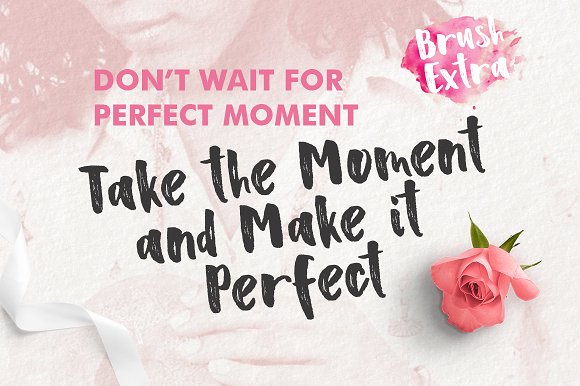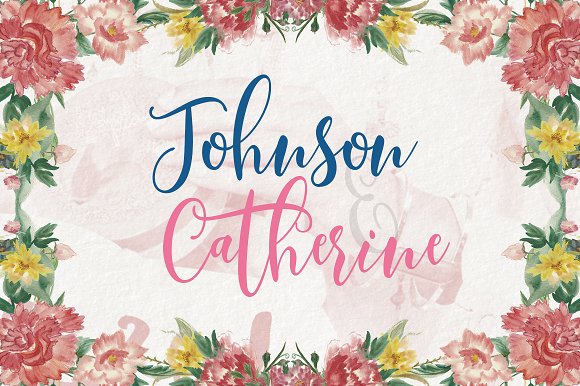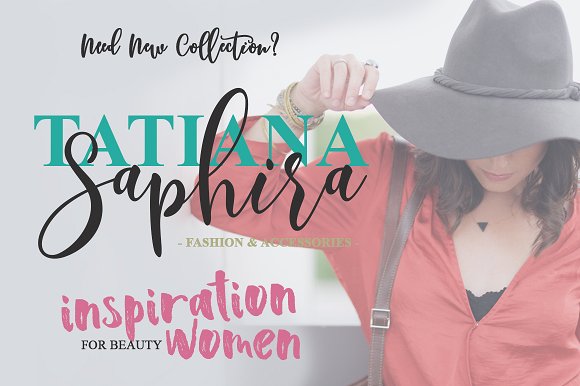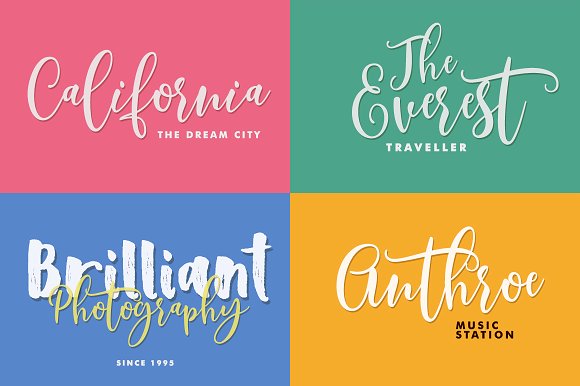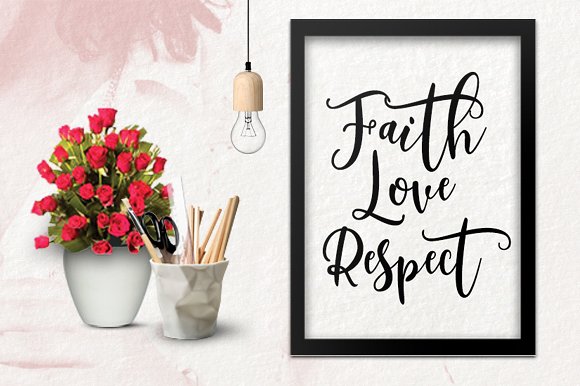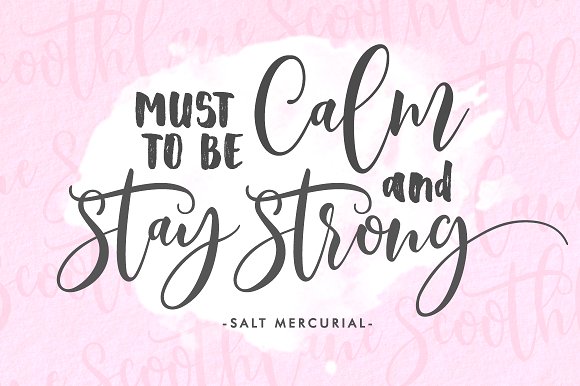
HomePersonal Use FreeScoothlane Personal Use Free Scoothlane FacebookTwitterPinterestWhatsApp 1 of 8 About Scoothlane Font Scoothlane is a smooth handwritten font with soft letters and packed with swashes. DOWNLOAD NOW People also explored Dastie Font Cutebray Font Agatha Font Chocolate Font Calsatia Font Delphia Font Cholete Jetto Font Purple Queen Font Withdrew Font 198 0 TagsScoothlane Font Previous articleBoskNext articleSquealer LEAVE A REPLY Cancel reply Comment: Please enter your comment! Name:* Please enter your name here Email:* You have entered an incorrect email address! Please enter your email address here Website: Save my name, email, and website in this browser for the next time I comment. Personal Use Free Sefiya Personal Use Free Read more about this font Fibon Personal Use Free Read more about this font Ennobled Pet Personal Use Free Read more about this font Astercla Personal Use Free Read more about this font BLOG Using Fonts in Digital Marketing: Tips to Strengthen Your Brand Identity In the realm of digital marketing, every visual element plays a crucial role in shaping a brand's identity, and fonts are no exception. The... Top 7 Google Fonts Alternatives for Faster and Privacy-Friendly Web Design (2025) Best Fonts for T-Shirt Design – Top 2025 Picks Free Fonts Risk: Why Free Fonts Can Be Dangerous for Designers